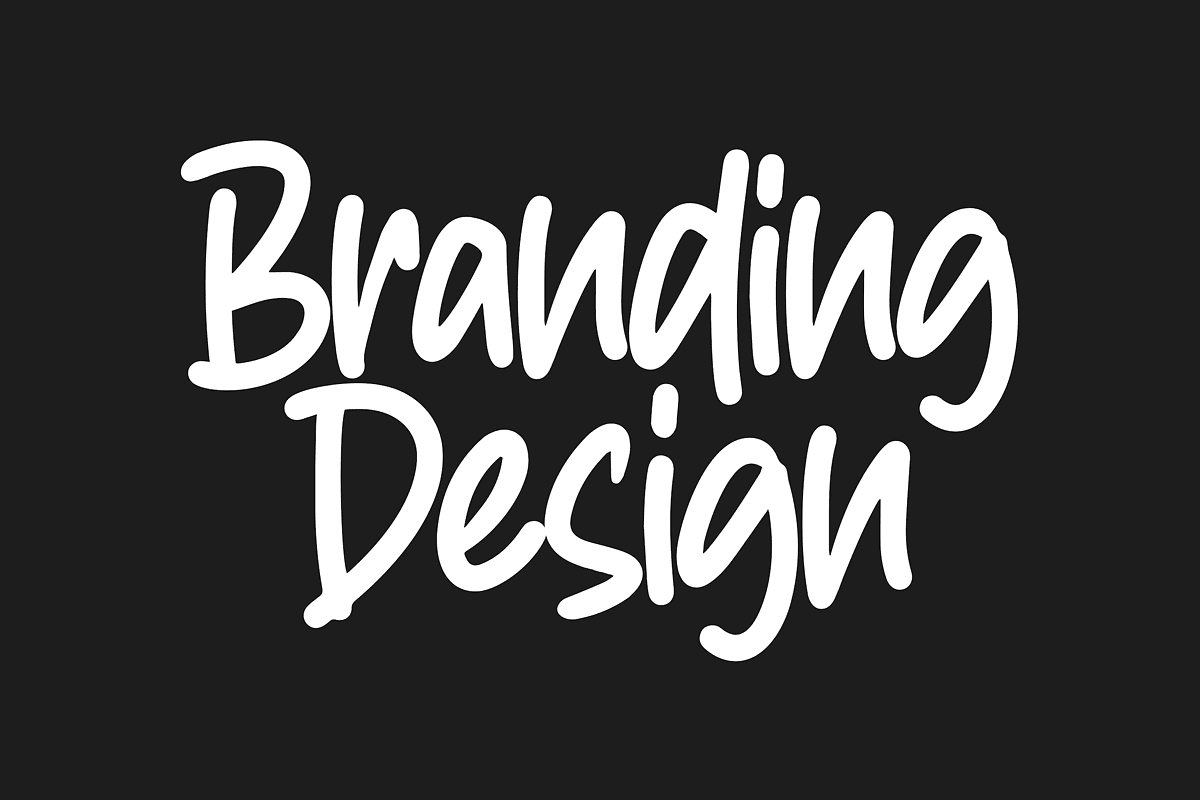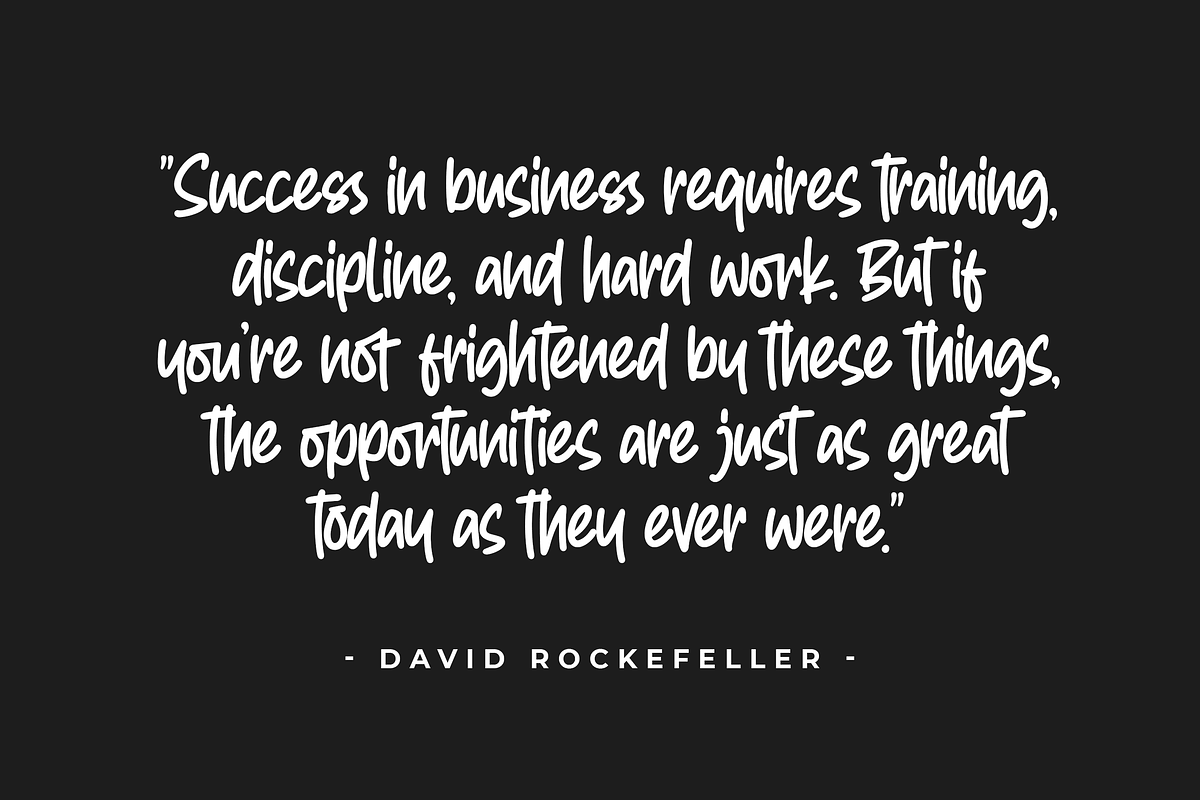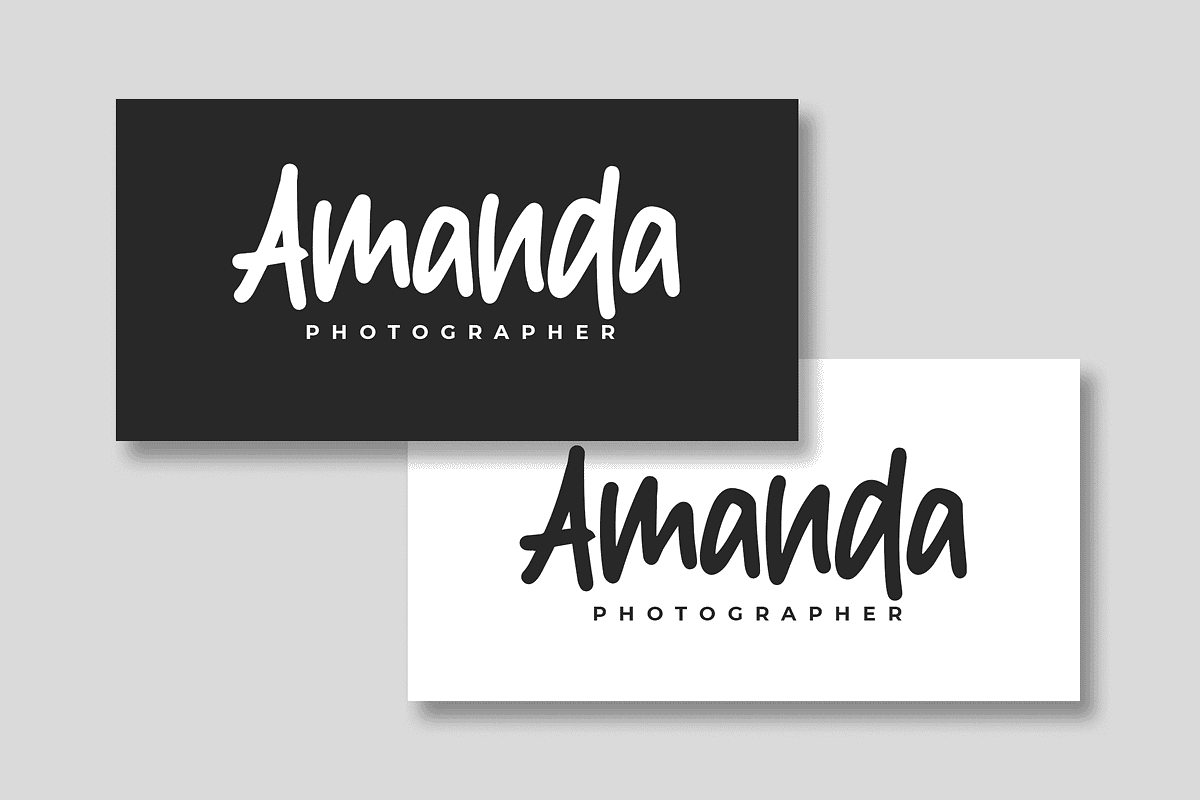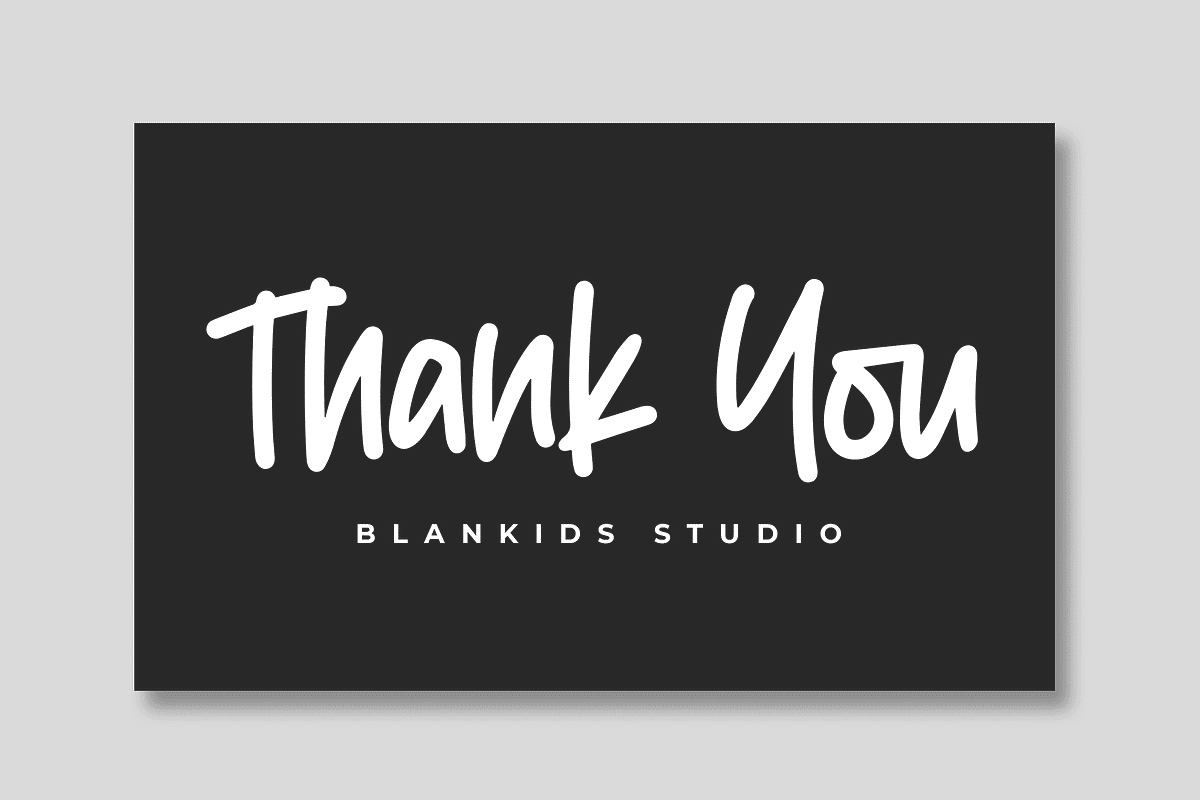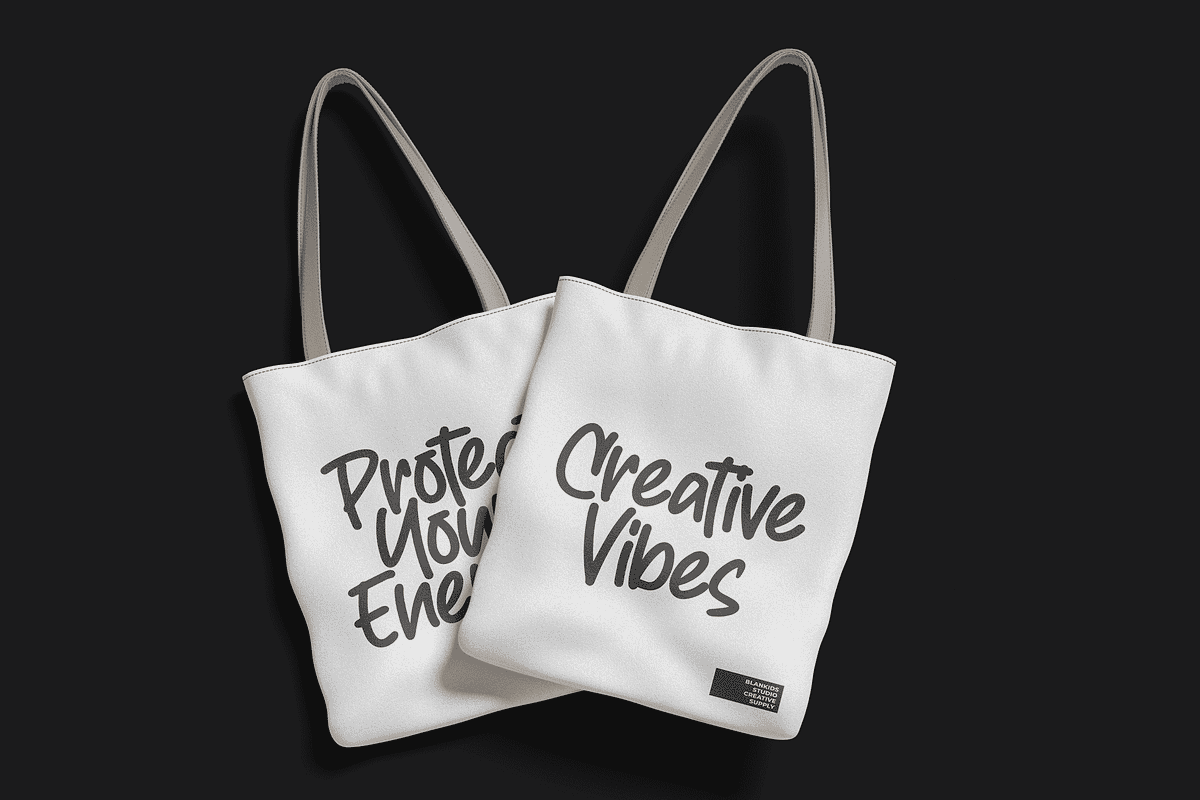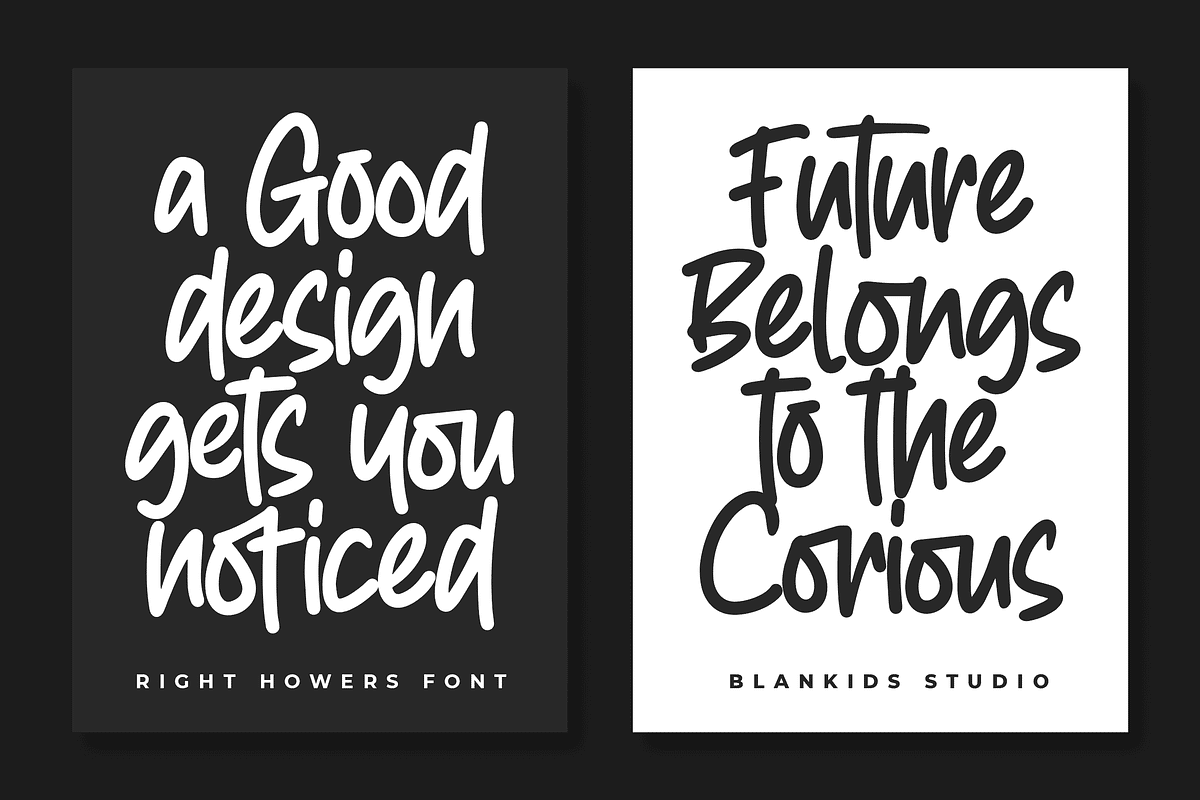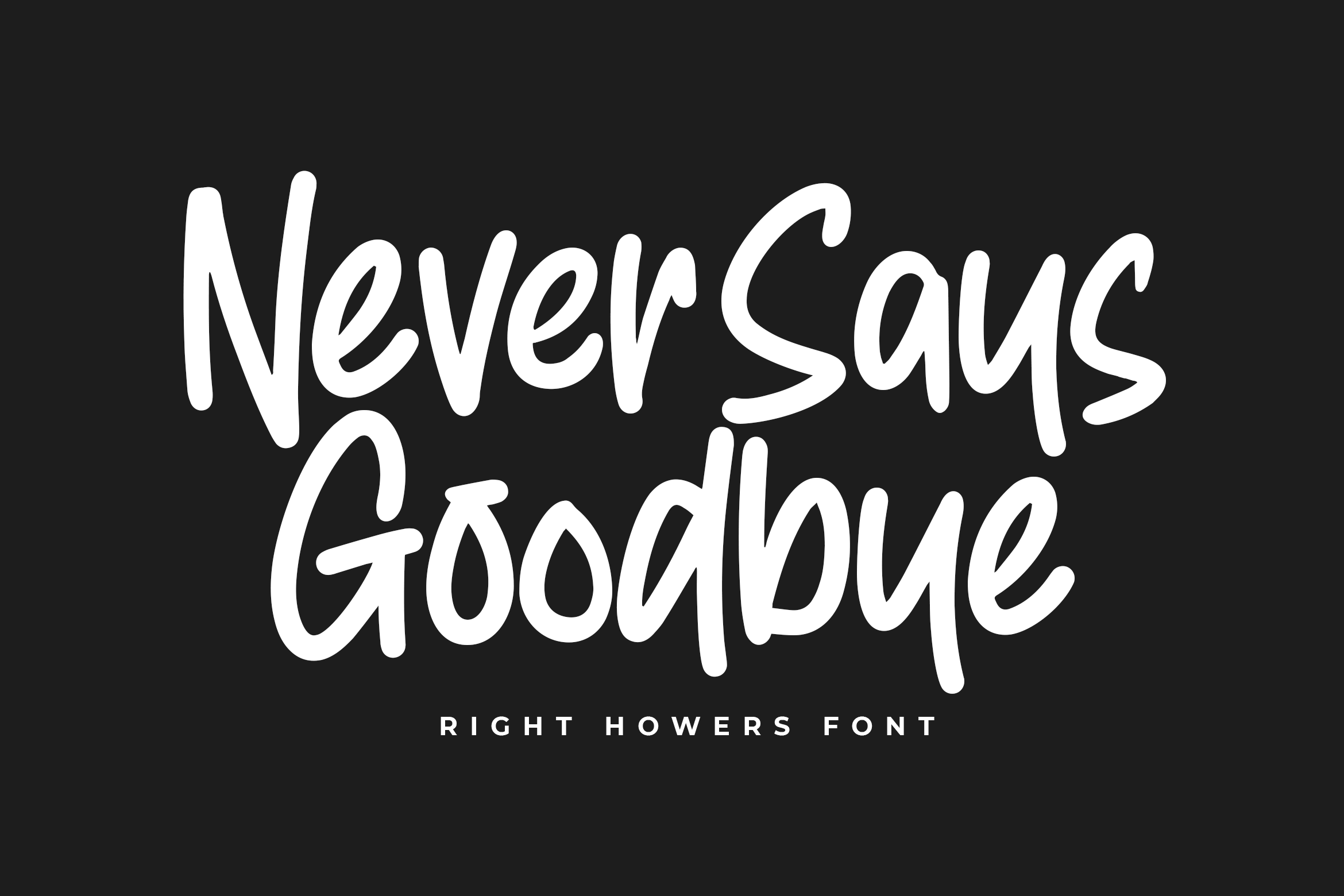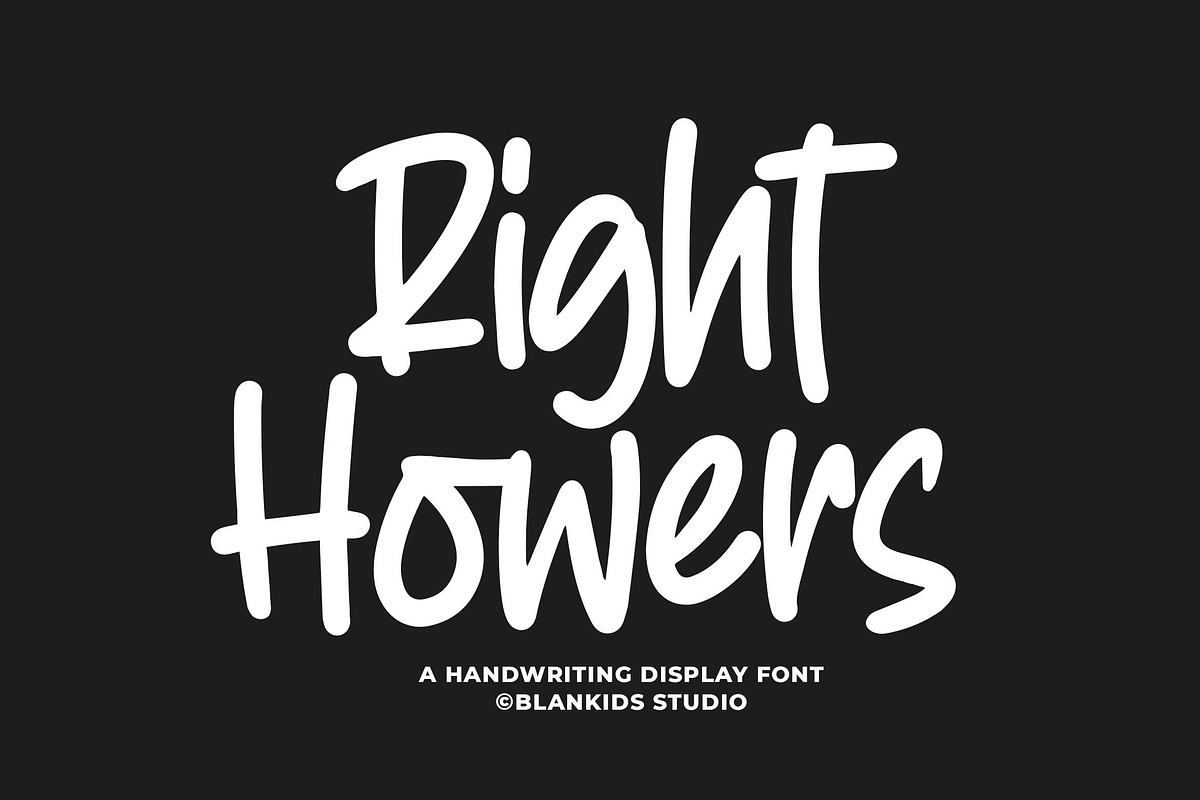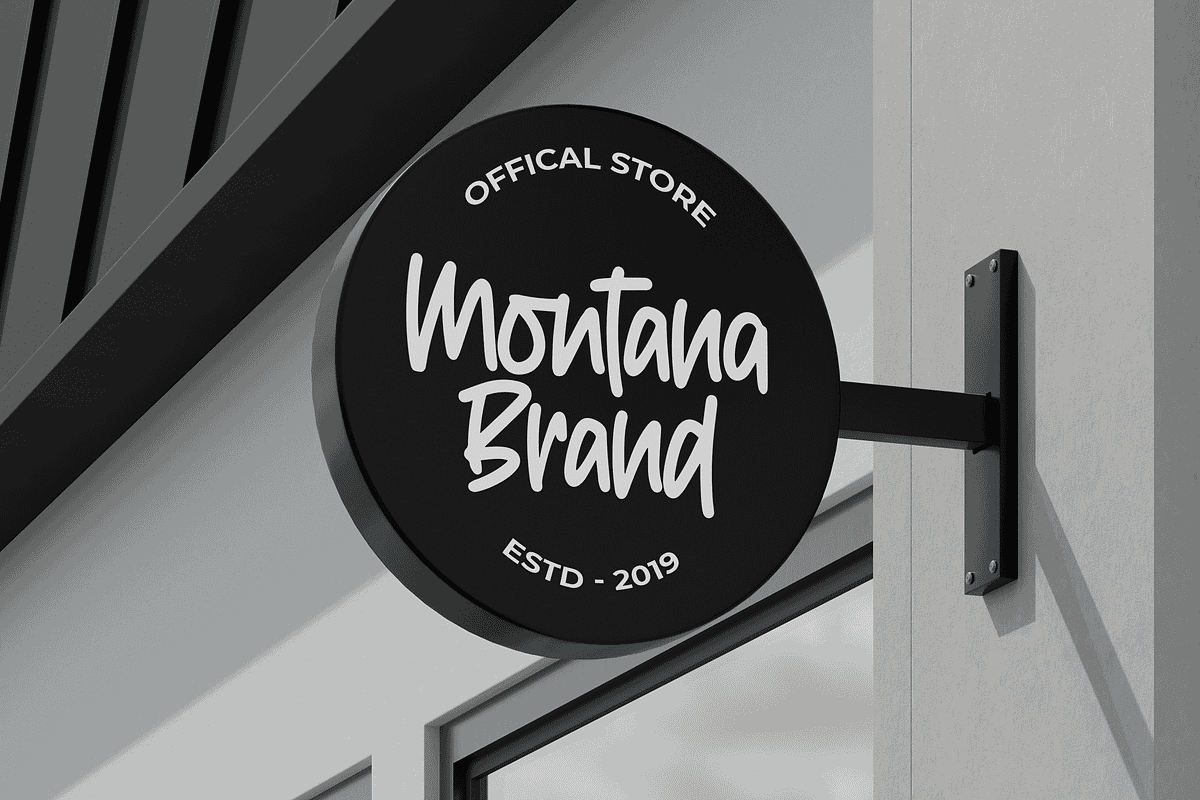
Right Howers a Handwritting Font
Hello, awesome people! This time, we have a new font called Right Howers, a handwriting display font by Blankids Studio.
Right Howers , a handwriting display font is made for any professional project branding, such as logotype, watermarks, poster, branding, promotions, product packaging, etc. Every letter has a handwritting style design.
Right Howers font includes a full set of handwriting uppercase and lowercase letters, numerals and punctuation. This font has a handwriting style. See the previews above to get some inspiration on how to use them. Happy designing!